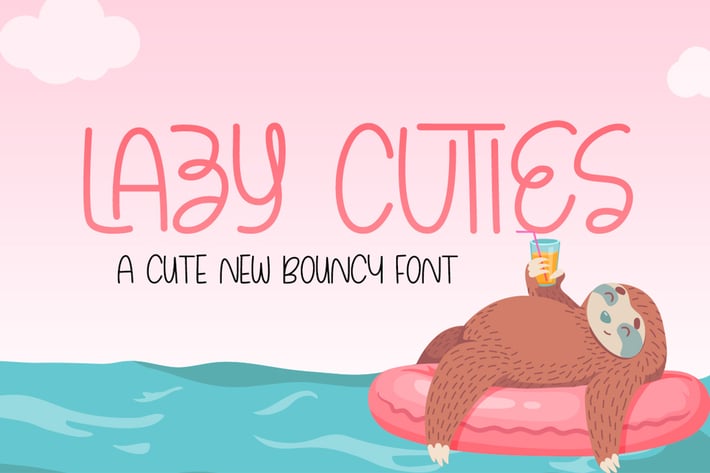
Lazy Cuties Font
Lazy cuties is an adorable new font that showcases some fun and quirky, hand drawn letters! Perfect for adding a little whimsy to your new work! Have fun and remember to always be cute!